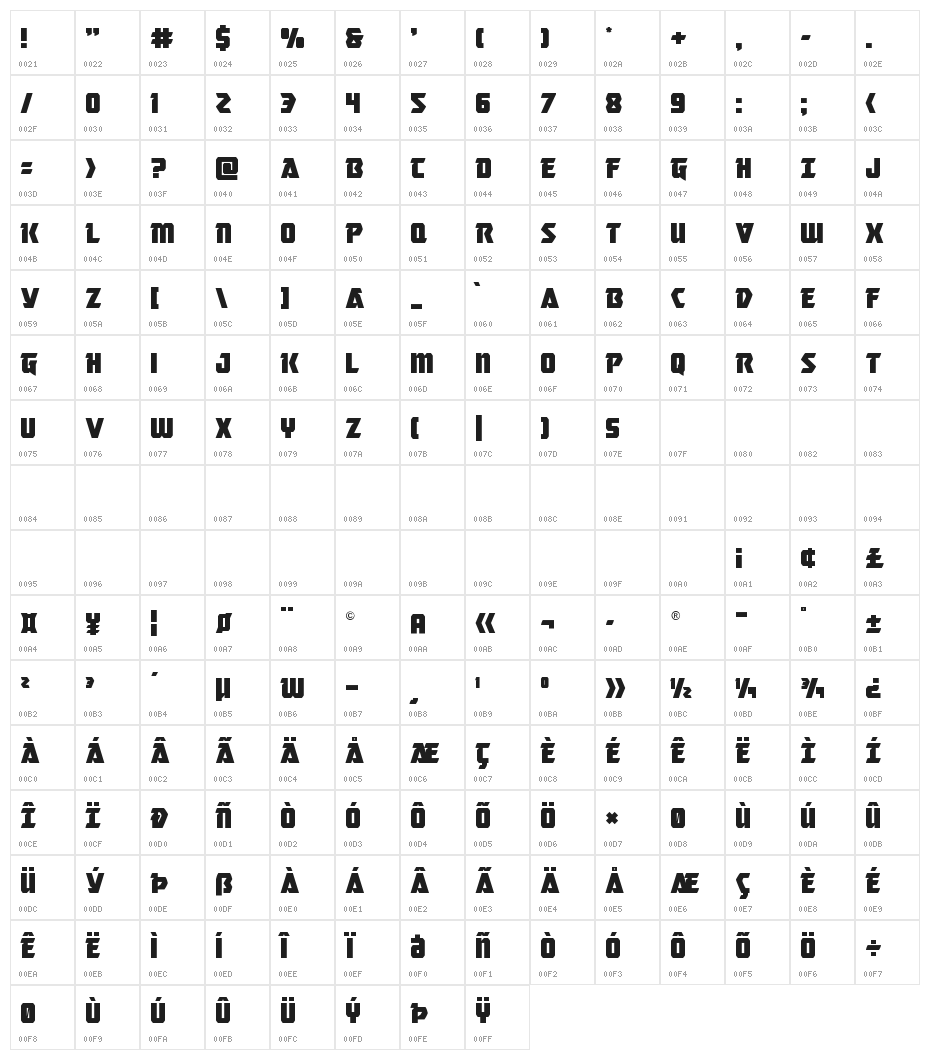
Master Breaker Font
Master Breaker Description
This font features a bold, geometric design with sharp angles and a strong presence. The characters are blocky and robust, giving off a futuristic and industrial vibe. The uppercase and lowercase letters maintain a consistent style, with the lowercase slightly smaller but equally bold. Numbers and special characters are designed to match the overall aesthetic, ensuring uniformity across all text. The font's distinct style makes it stand out, ideal for projects that require a commanding and modern look.
MASTER-BREAKER UPPERCASE
MASTER-BREAKER LOWERCASE
MASTER-BREAKER OTHER CHARS